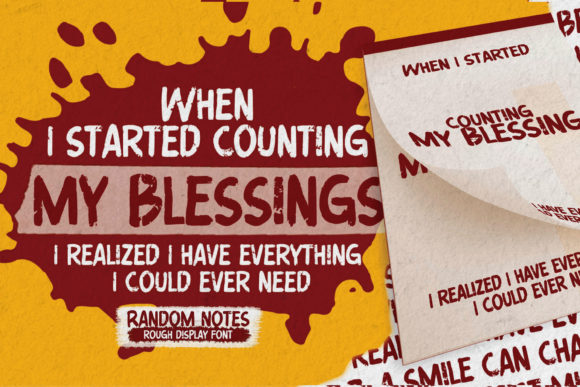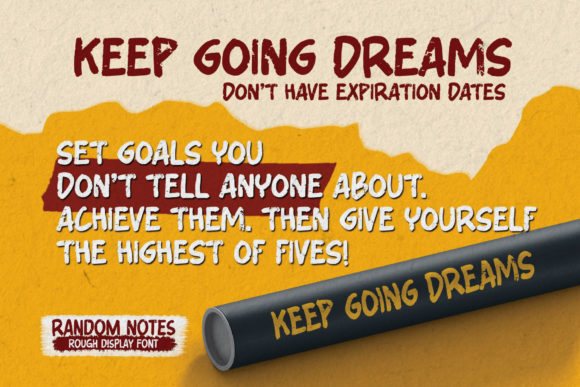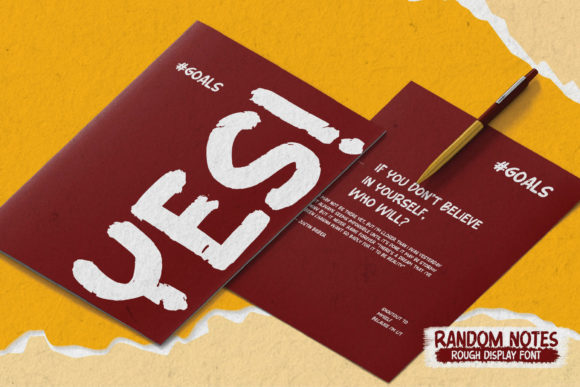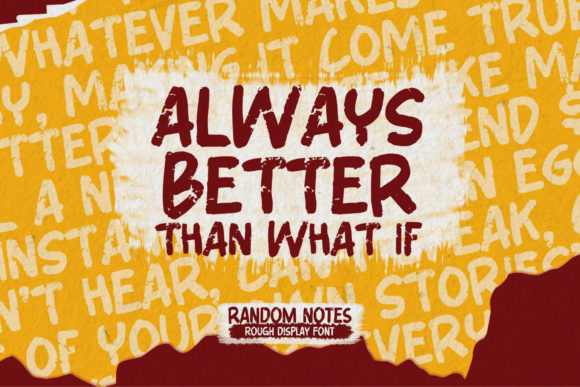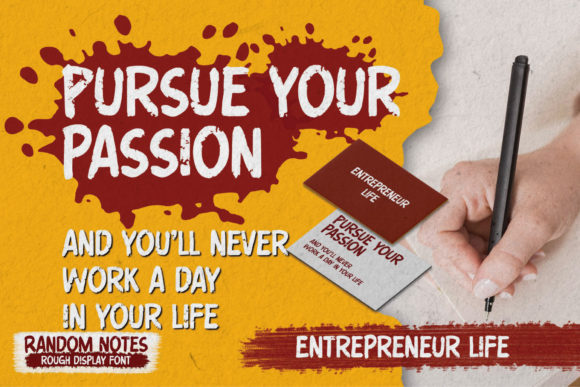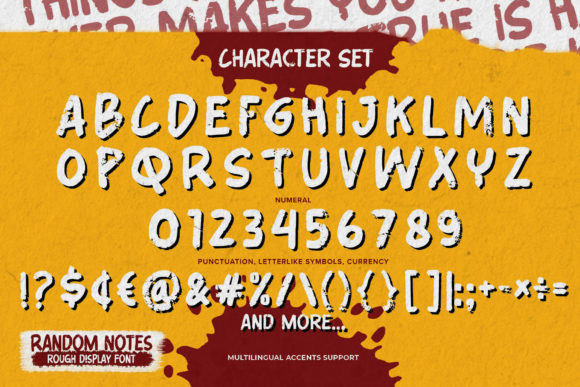
Introduction to Random Notes Font
As designers, we’ve all been there – staring at a blank canvas, waiting for that spark of creativity to strike. The moment when everything comes together, and our project takes on a life of its own. For those special moments, we need a font that can elevate our design and add a touch of personality. That’s where the Random Notes Font comes in – a handmade, rough display font that’s perfect for adding a natural, human touch to your creative project.
Whether you’re working on a logo, poster, or invitation, the Random Notes Font is an excellent design resource that can help you stand out from the crowd. With its unique, hand-crafted feel, this font is perfect for designers looking to add a high-quality, personalized touch to their work. And the best part? It’s available for free download, making it an accessible and valuable addition to any design toolkit.
With its transparent background and versatility, the Random Notes Font is an excellent choice for designers who want to add a creative twist to their projects. From watermarks to product packaging, this font is sure to make a lasting impression and leave a lasting mark on your audience.
Key Features of Random Notes Font
- High-quality design resource with a unique, handwritten feel, perfect for creative projects.
- Comes with a transparent background, allowing for easy customization and integration into any design.
- Includes a comprehensive character set, covering a wide range of languages and special characters.
- Designed at a high resolution of 300 DPI, ensuring crisp and clear typography in any size.
- Perfect for use in digital design, including web, graphic design, and print materials, such as posters, flyers, and brochures.
Honest Review: Random Notes Font
I recently came across the Random Notes Font and was excited to give it a try. As a designer, I’m always on the lookout for high-quality design resources that can elevate my creative projects.
- What works well: ✨ The font is incredibly versatile and can be used for a wide range of design applications, from digital products to print materials.
- ✨ The font is easy to download and use, with a transparent background that makes it seamless to integrate into any design.
- ✨ The design is unique and eye-catching, making it perfect for designers who want to add a touch of personality to their projects.
- ⚠️ The font may not be suitable for formal or professional designs, as it has a more casual and playful tone.
- ⚠️ Some users may find the font a bit too quirky or experimental, which can be a turn-off for those who prefer more traditional designs.
Overall, I’m really impressed with the Random Notes Font. It’s a high-quality design resource that can add a lot of creativity and personality to your projects. While it may not be suitable for every design application, it’s definitely worth checking out if you’re looking for something unique and eye-catching.
Getting the Most Out of Random Notes Font
To get the most out of the Random Notes Font, use it in combination with other design elements to create a cohesive and visually appealing design. Experiment with different sizes, colors, and alignments to find the perfect look for your creative project.
The Random Notes Font is perfect for a variety of creative projects, including:
- Blog posts and articles
- Presentations and slides
- Documents and reports